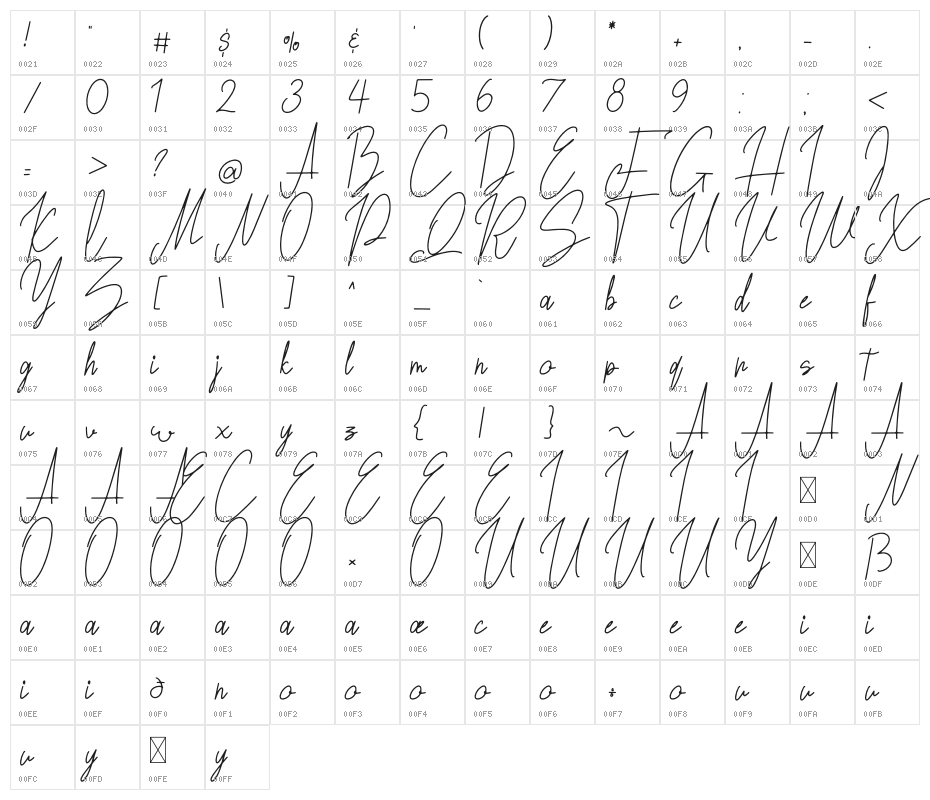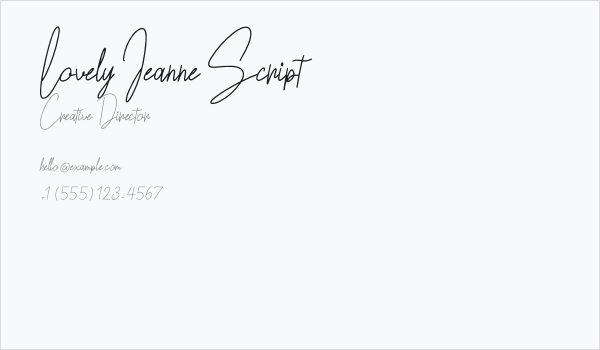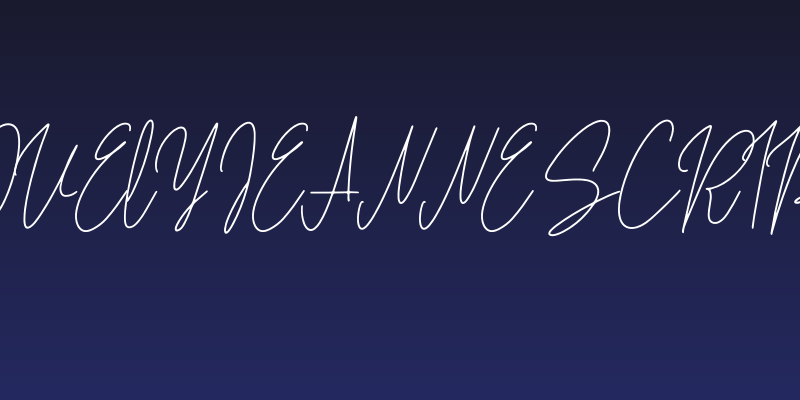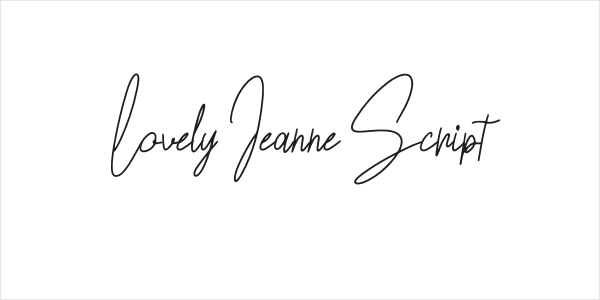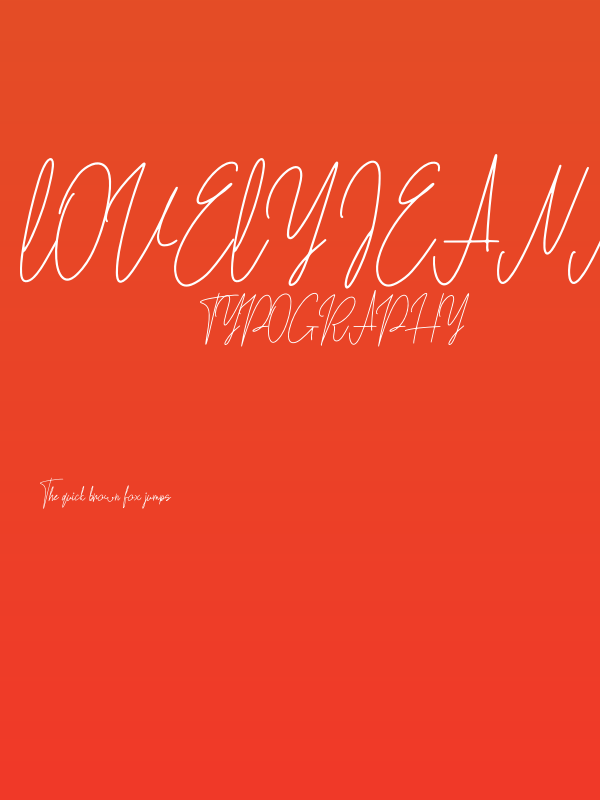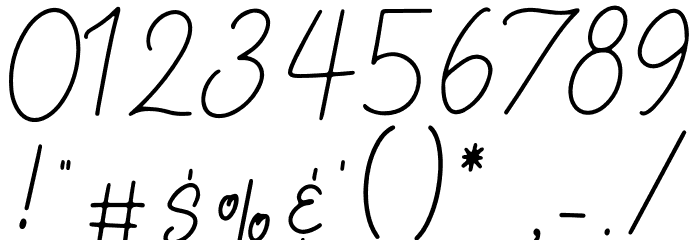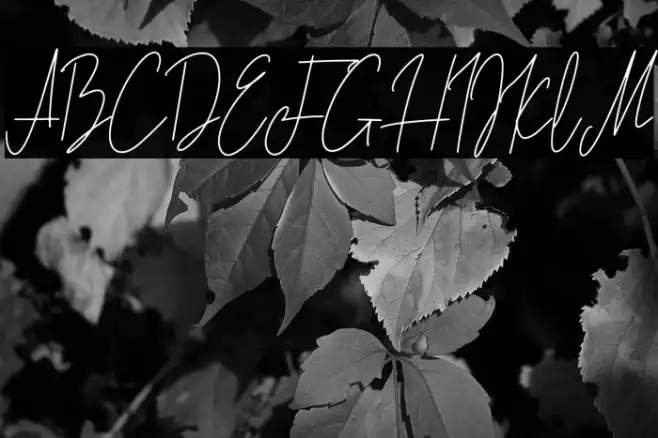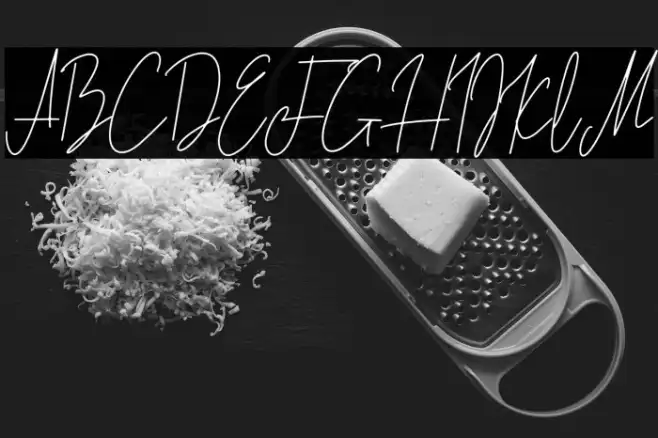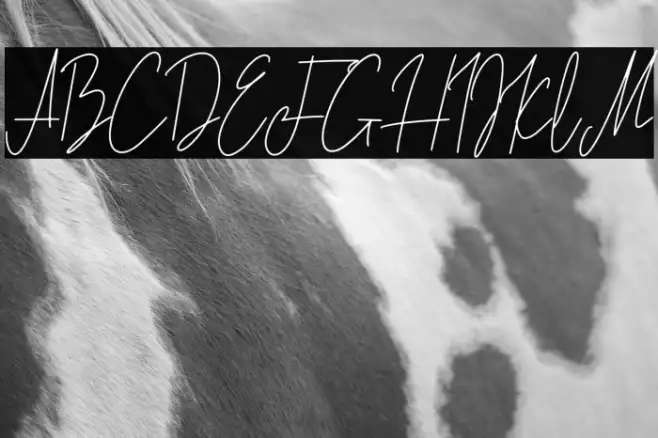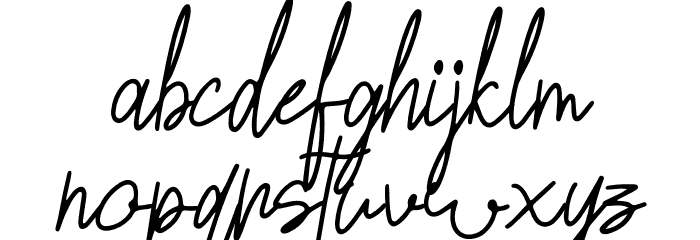
Lovely Jeanne Script Font
Lovely Jeanne Script Description
This font exudes a charming and elegant script style, characterized by its flowing, cursive letterforms. The uppercase letters are tall and slender, with graceful loops and swashes that give a sense of fluidity and movement. The lowercase letters maintain a consistent slant, enhancing the handwritten feel. The numerals are clear and legible, complementing the overall aesthetic. Special characters are thoughtfully designed, integrating seamlessly with the rest of the typeface. This script font is perfect for adding a personal touch to any design, evoking warmth and sophistication.